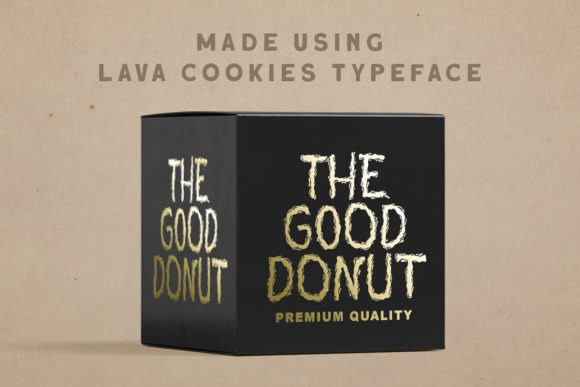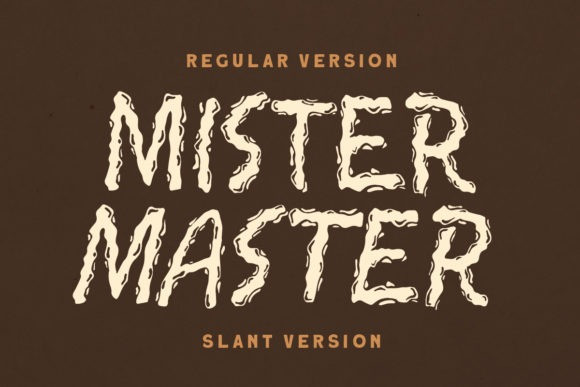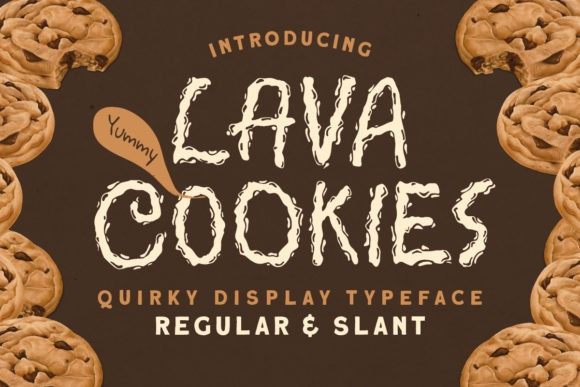
Lava Cookies Font
Lava Cookies Font is a fun and quirky display font. Interesting and unique, this font looks lovely on a variety of designs. Add it confidently to your projects, and you won’t be disappointed.